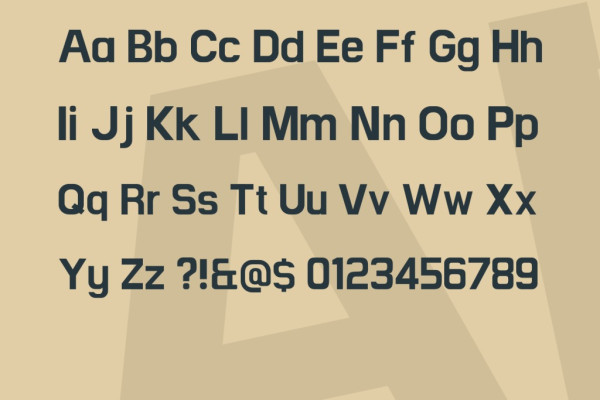
Hasting Dee Quickest Font
Hasting Dee Quickest Font, is a sans serif  stunning when combined or separately. This sans serif font style is legible and stunningly designed.